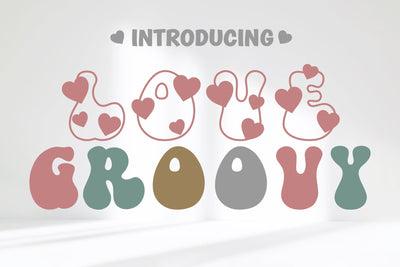
Love Groovy Decorative Fonts
Love Groovy It's a decorative font and Display Font, cute style and fun. It can be used in a variety of applications. Fall in love with its authentic feel and use it to create gorgeous invitations, beautiful stationary art, eye-catching social media posts, and cute greeting cards. Add it now to your fonts library, and start creating spectacular designs!